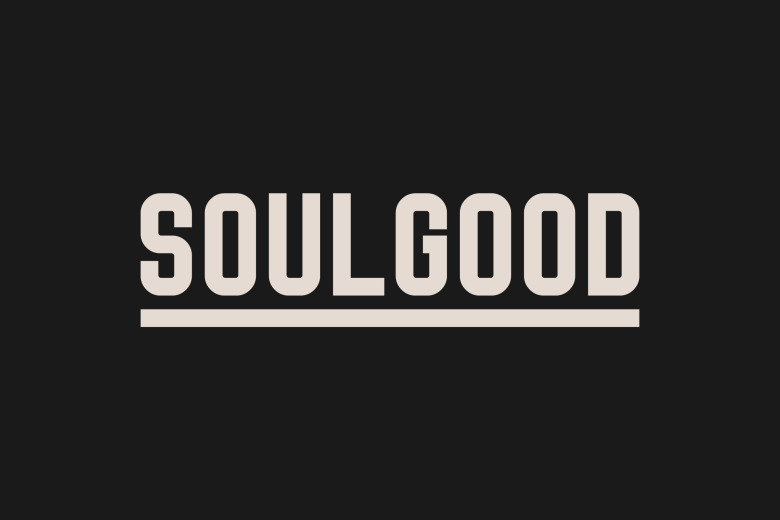
Soulgood Font is the sans serif typeface which has modern and strong style. The curves that are put in some of the letters give the soulgood that charming and elegant look. Ideally suitable for magazine, headers, invitations, cover book, Logo, brand identity and much more. It has all the uppercase letters of the alphabetical, numeric and symbolic sets.
Soulgood Sans Serif Font